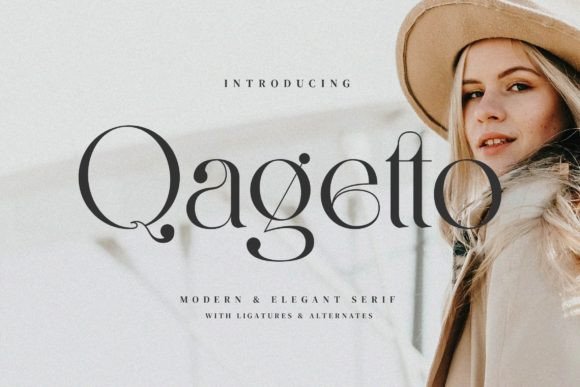
Introducing Qagetto Font, the must-have font for designers looking to add a touch of elegance and modernity to their projects. This stunning serif font, created by the talented Aqeel_Art, is the perfect choice for those in search of the Best Fonts for Plain Text.
Qagetto Font is a true masterpiece, inspired by the famous minimalist logo. Its sleek and sophisticated design is guaranteed to make your designs stand out from the crowd. Whether you're designing templates, brochures, videos, or advertising branding, this font is sure to elevate your work to the next level.
With Qagetto Font, you don't have to compromise on style or readability. Its clean and legible lines make it ideal for both large and small text, making it a versatile option for a wide range of projects. The font's elegant curves and sharp serifs will add a touch of class to any design, leaving a lasting impression on your audience.